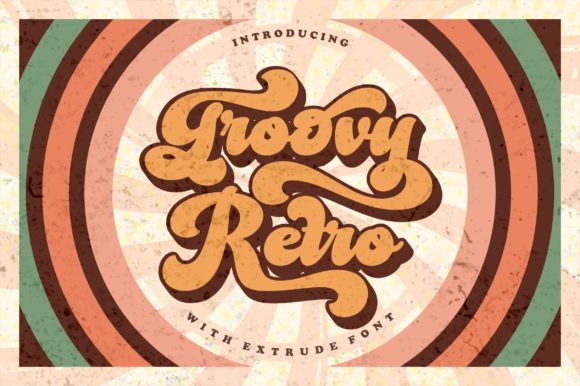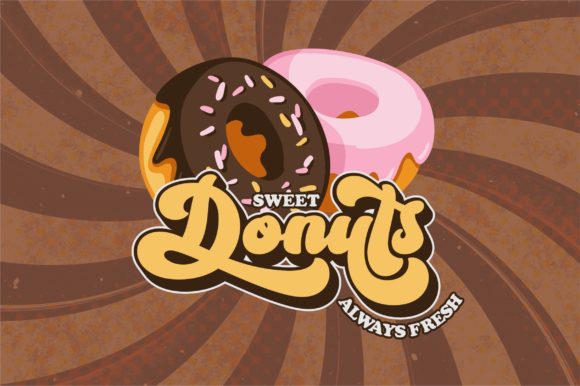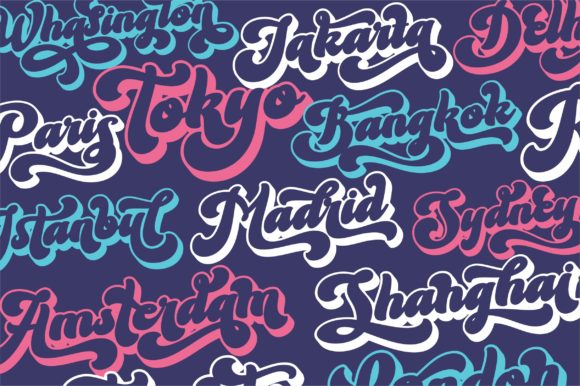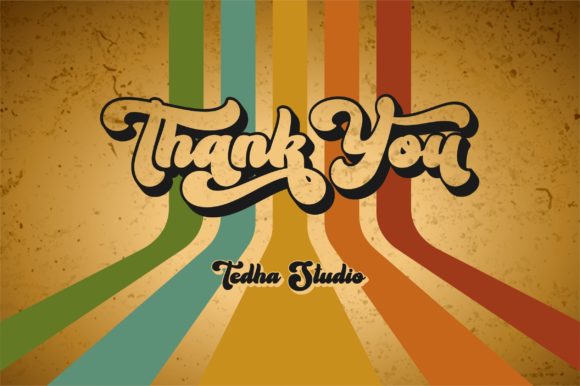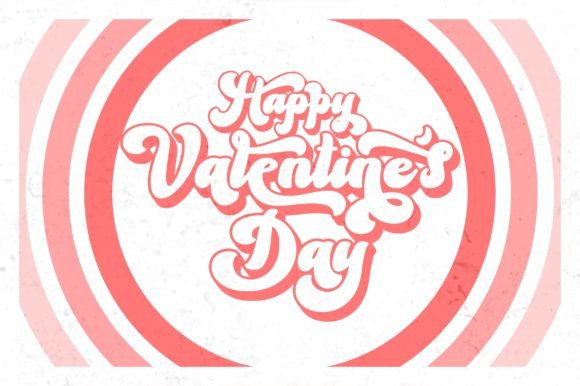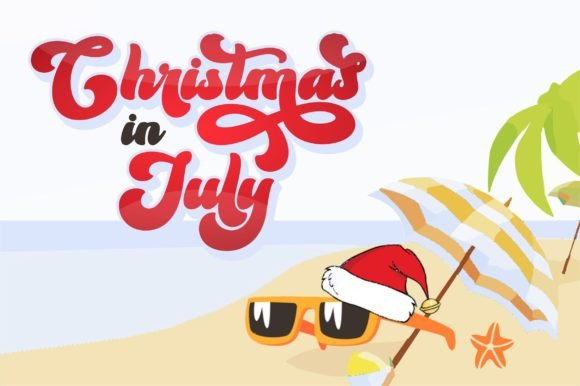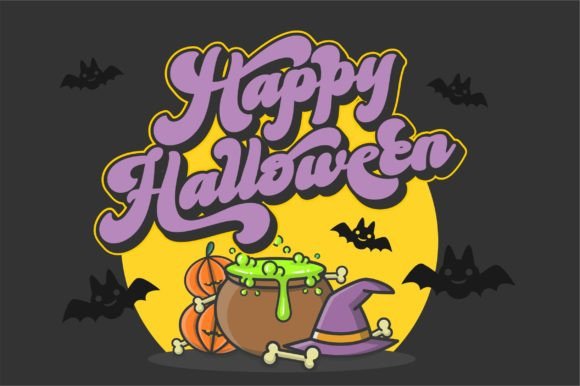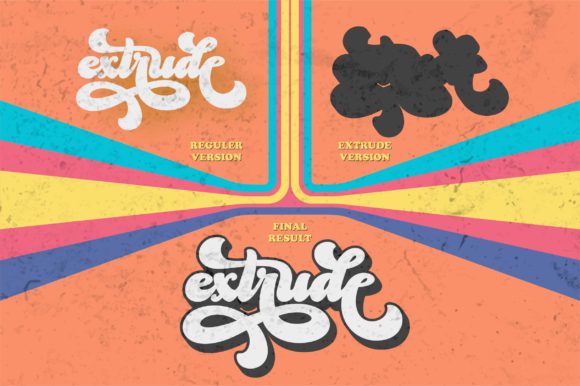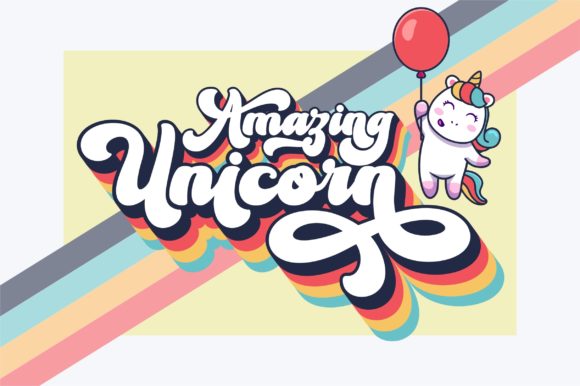
Groovy Retro Font
Introducing “Groovy Retro,” a font that effortlessly transports you to a playfully nostalgic era, delivering an incredible vintage retro aesthetic. This font is not just about letters; it’s about reliving the funky vibes of the past and taking any retro design to the next level with its masterfully designed, groovy charm.
Get ready to embrace the funkiness of Groovy Retro, as it becomes an instant favorite for designers seeking that perfect vintage touch. Its unique design elements capture the essence of retro aesthetics, making it a standout choice for a wide range of creative applications.
Groovy Retro is your go-to font for logotypes that demand a distinctive and nostalgic flair. It’s equally at home in headlines, corporate identities, and brand identities, bringing a touch of the past to contemporary design. In the apparel industry, this font becomes a statement piece, infusing garments with a sense of retro coolness.
Let Groovy Retro set the mood for your posters, music covers, movie titles, games, magazines, books, comics, cartoons, YouTube intros, Instagram posts, websites, and any creative design project that craves a dose of vintage charm. Its versatility ensures that it seamlessly integrates into various mediums, enhancing the visual narrative with its groovy personality.
One notable feature of Groovy Retro is its PUA encoding, allowing easy access to a treasure trove of glyphs and swashes. This feature empowers designers to explore and incorporate unique elements effortlessly, enhancing the overall customization of their projects.
In summary, Groovy Retro is not just a font; it’s a journey back in time, a celebration of nostalgia, and a design tool that transforms ordinary projects into groovy masterpieces. Embrace the funk, let the retro vibes flow, and take your designs to a new level with the playful and nostalgic charm of Groovy Retro.